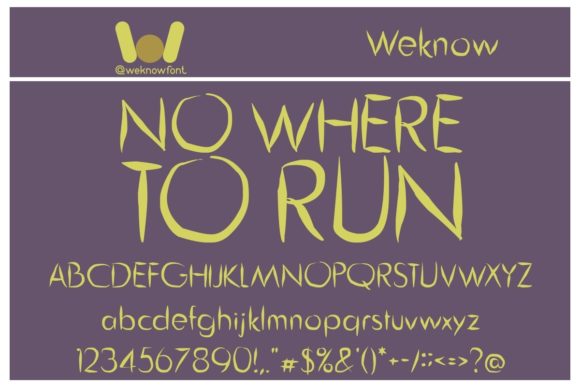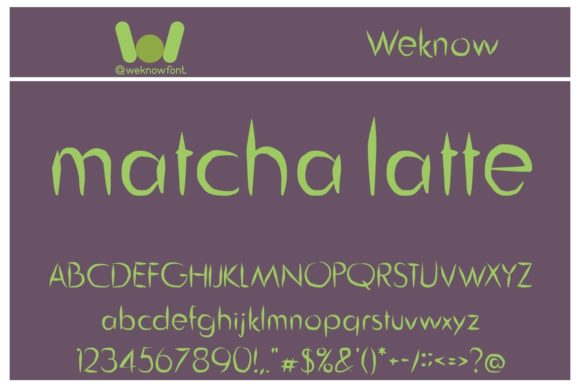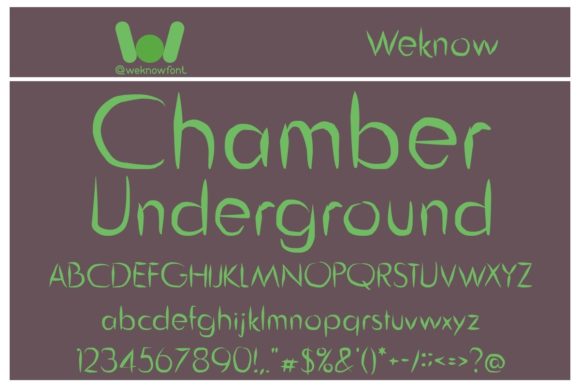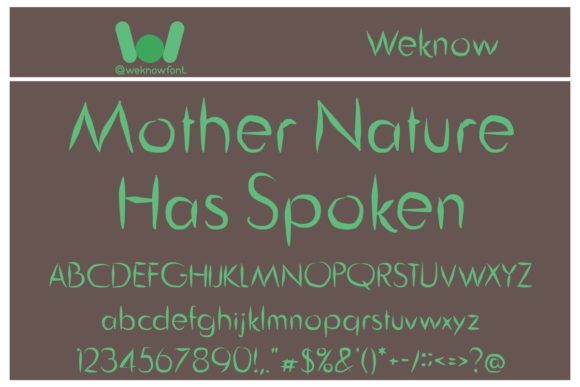
Guitar from Tree Font
About Guitar from Tree Font
Guitar from Tree is a clean and neat script font designed to bring a sense of clarity and sophistication to your creative projects. With its sleek and stylish appearance, this font is particularly well-suited for a variety of applications, making it a versatile choice for different design projects.
The clean and neat characteristics of Guitar from Tree make it suitable for various contexts, ranging from corporate identity and branding to apparel, posters, music, movies, games, magazines, books, comics, cartoons, YouTube, Instagram, websites, and more. Its adaptability allows it to seamlessly integrate into different design scenarios, ensuring a cohesive and professional look across diverse applications.
Whether used as a logotype, headline font, or within a corporate identity, Guitar from Tree maintains a clean and polished aesthetic, contributing to a modern and well-crafted visual identity. Its versatility extends to both print and digital mediums, making it a reliable choice for designers looking for a font that can effortlessly elevate their creative endeavors.
In summary, Guitar from Tree is more than just a font; it’s a clean and neat script typeface that enhances various design projects with a touch of sophistication. Its suitability for a wide range of applications makes it a valuable asset in your design toolkit, ensuring a consistent and refined look across different creative endeavors.